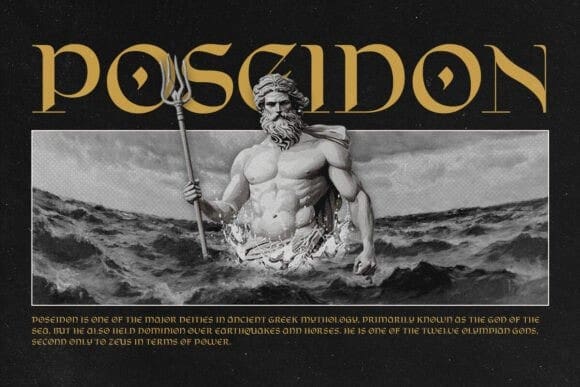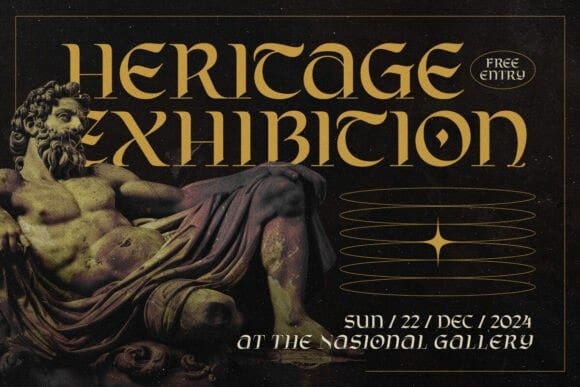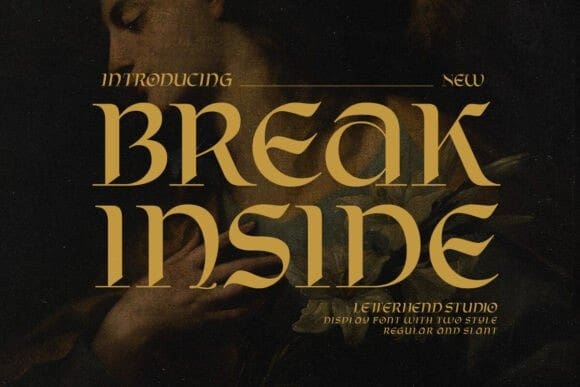
Break Inside Font
Break Inside Font, a unique display serif Font. This font has neat and sleek letterform, make it looks great to be used for modern and minimalistic design theme. This font perfectly made to be applied especially in logo, and the other various formal forms such as invitations, labels, logos, magazines, books, greeting / wedding cards, packaging, fashion, make up, stationery, novels, labels or any type of advertising purpose.